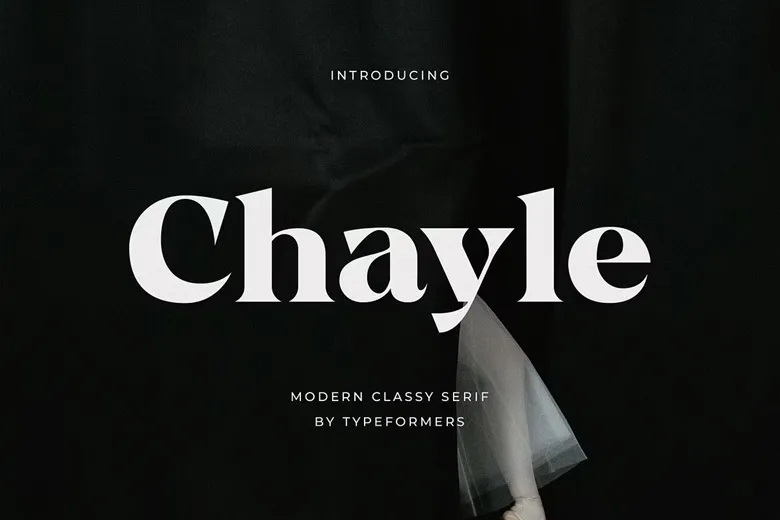
Chayle Font
Chayle is a clean sans-serif typeface that will do very well for headings & logos/brands, both print & digital, magazines, packaging, invitations, etc.
Chayle Serif Font